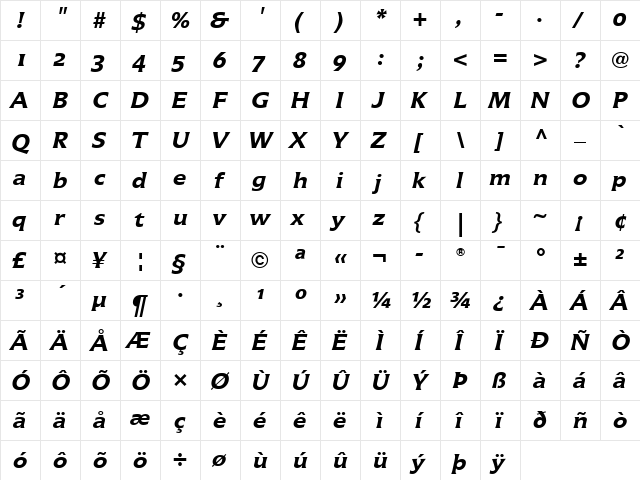
Icone LT RegularOsF Bold Italic Font Preview
Icone LT RegularOsF Bold Italic
Icone LT RegularOsF Bold Italic Font Details
Design Context for Icone LT RegularOsF Typeface
Icone LT RegularOsF takes a measured approach to typography — its balanced proportions and neutral character make it a reliable workhorse for both digital and print work. The slanted form adds forward momentum and visual energy. The heavy weight commands attention and anchors typographic hierarchies.
Pro Tip: Use Icone LT RegularOsF for emphasis, pull quotes, and subheadings where its slanted energy can add rhythm to the layout.